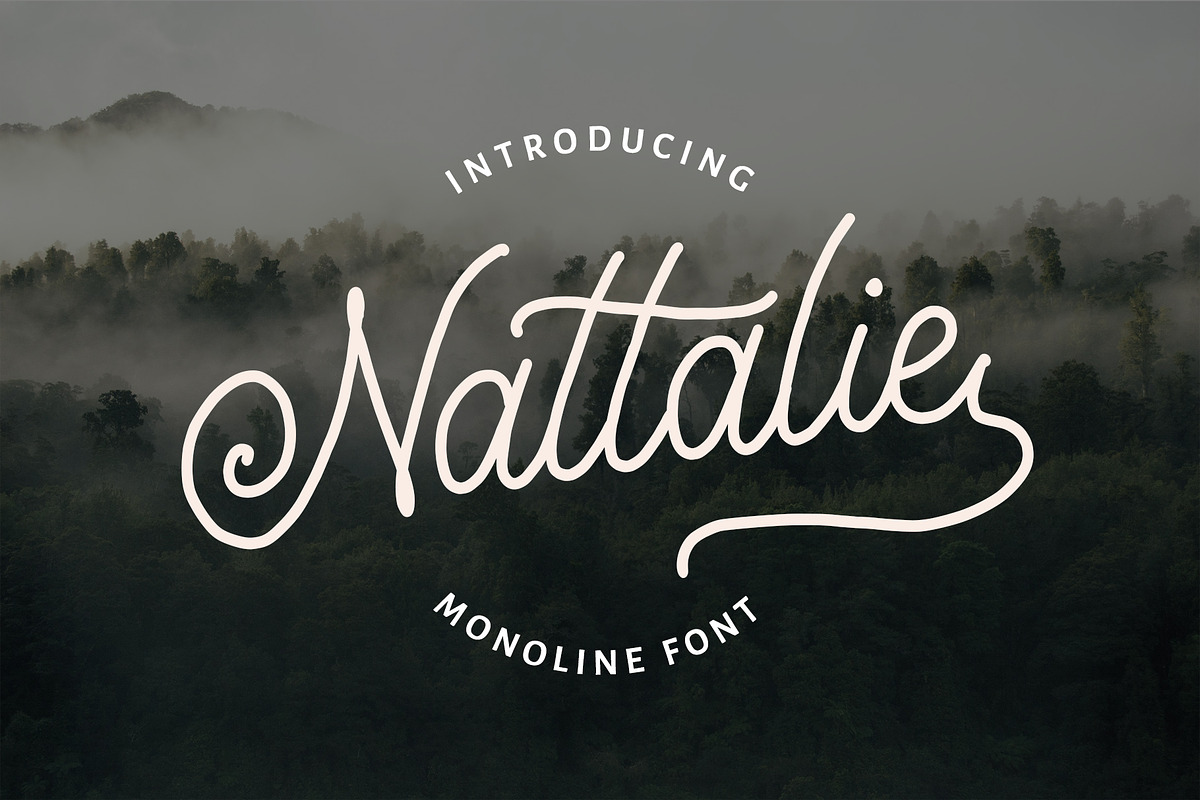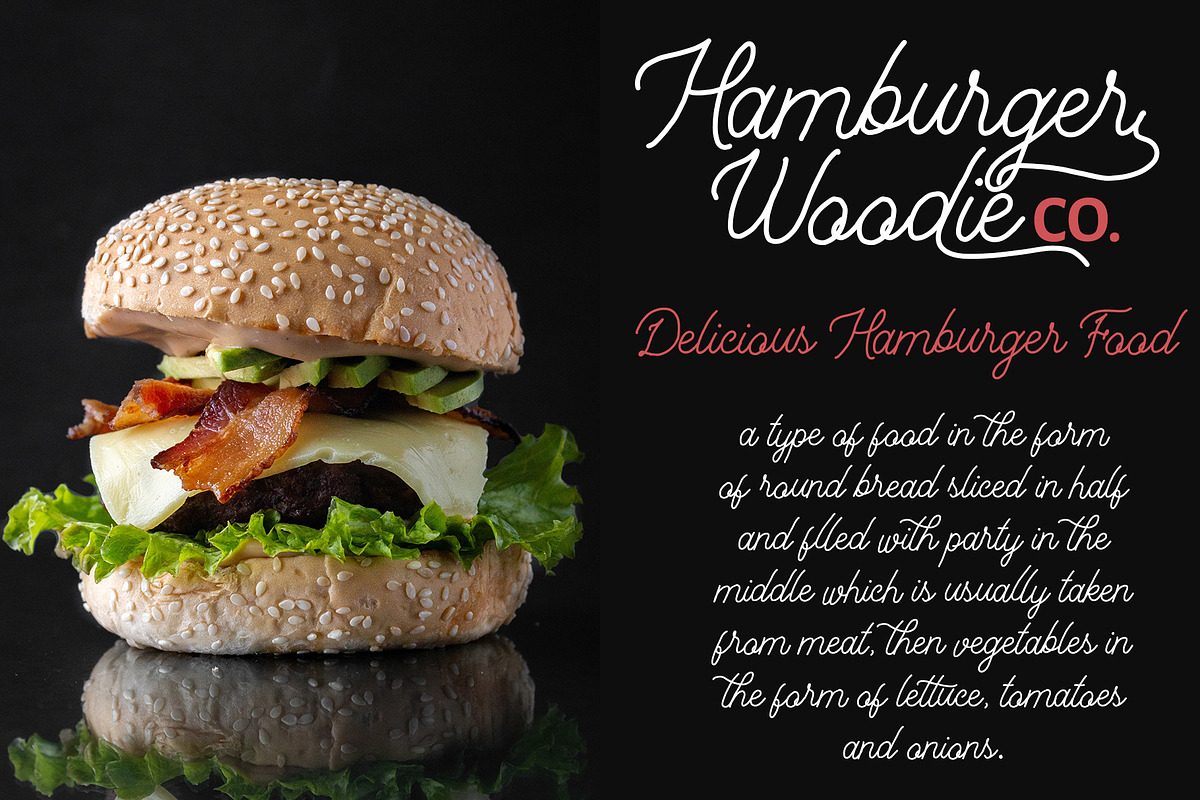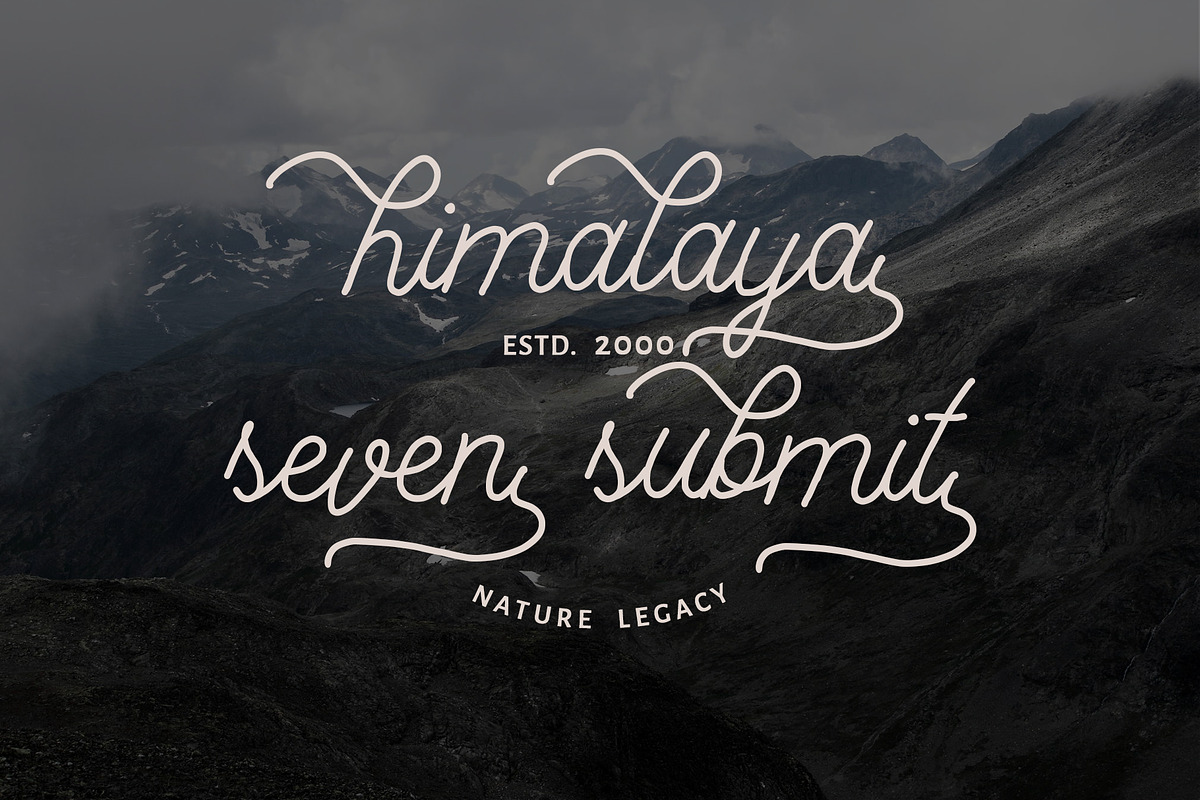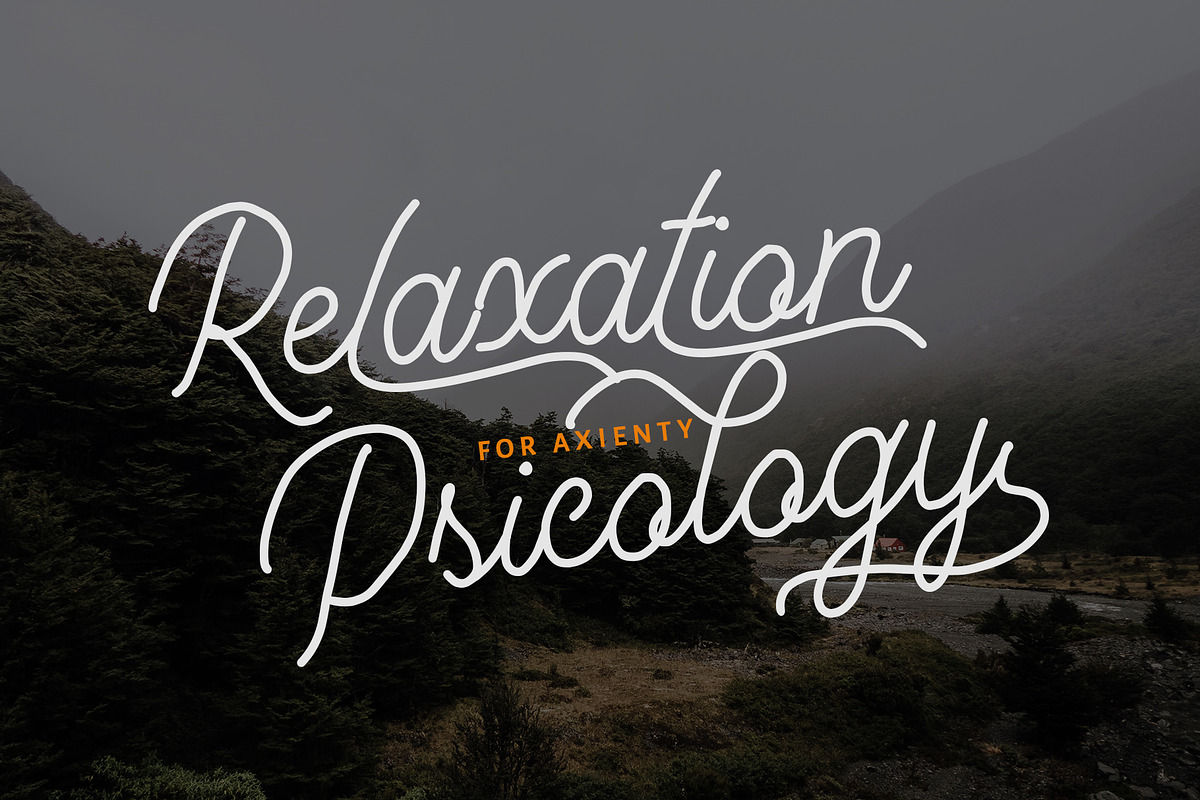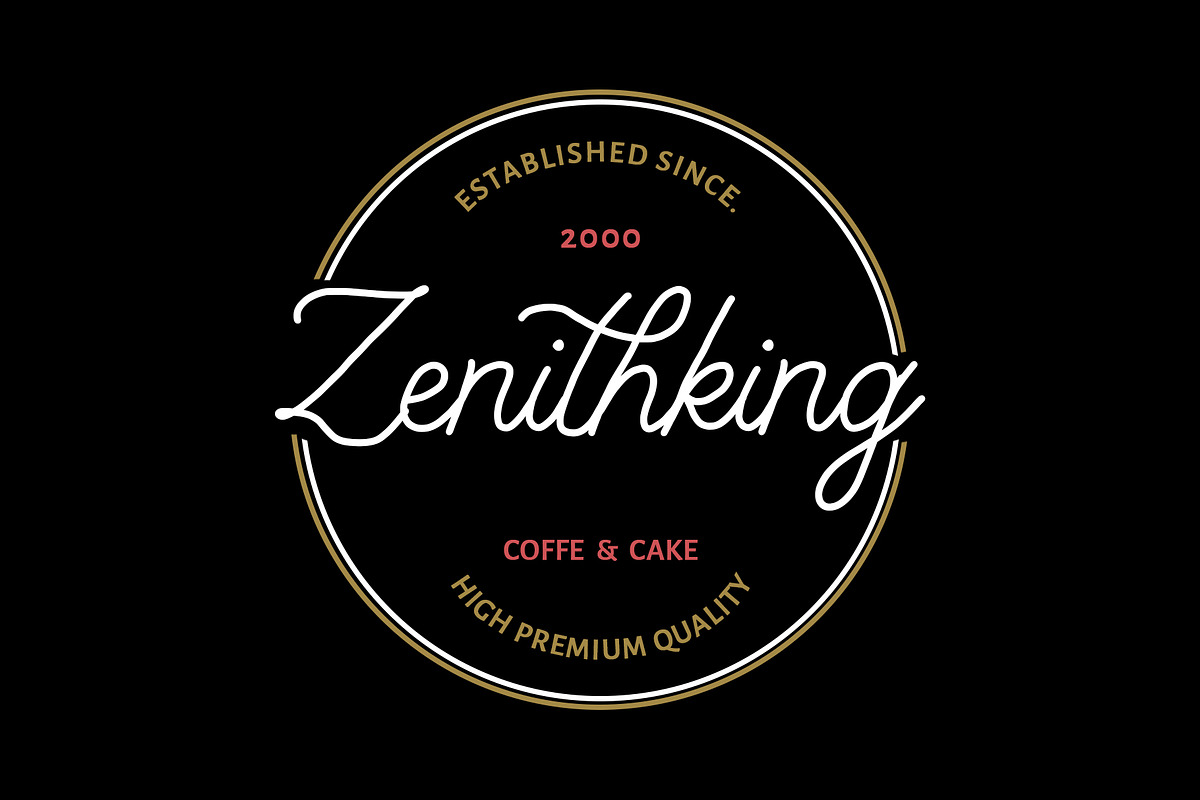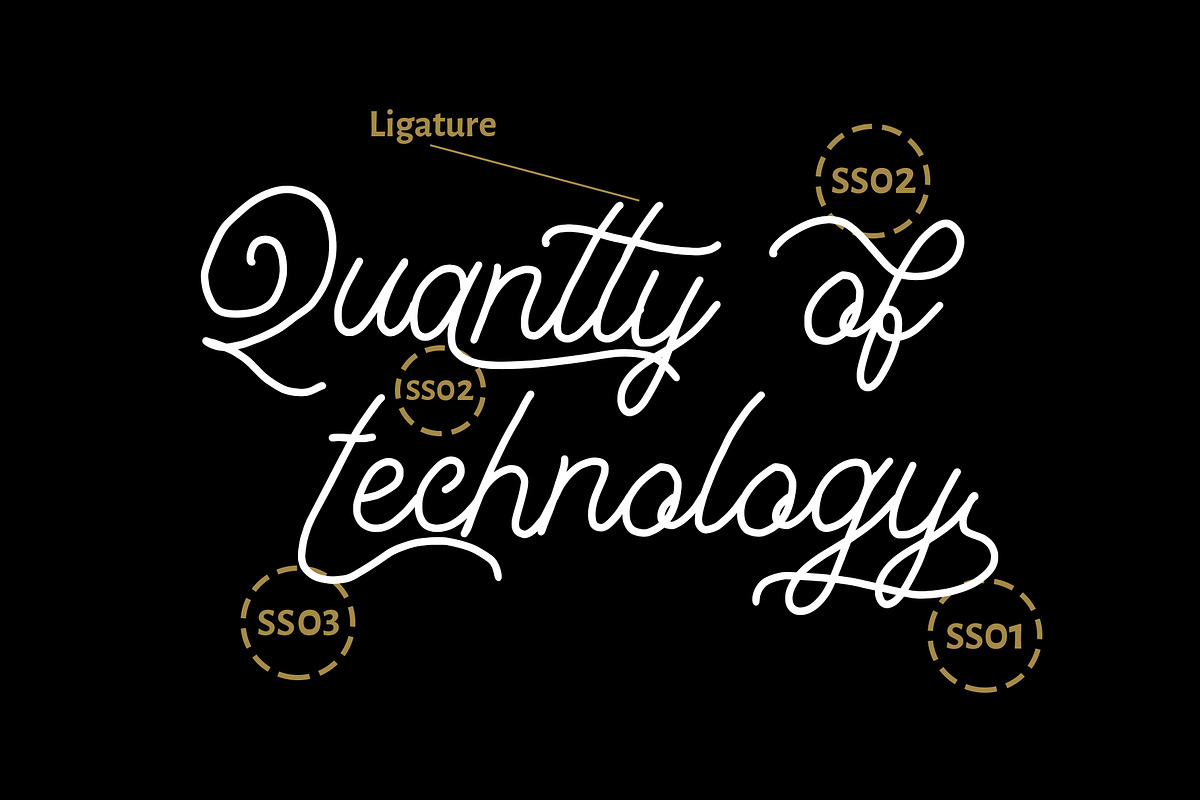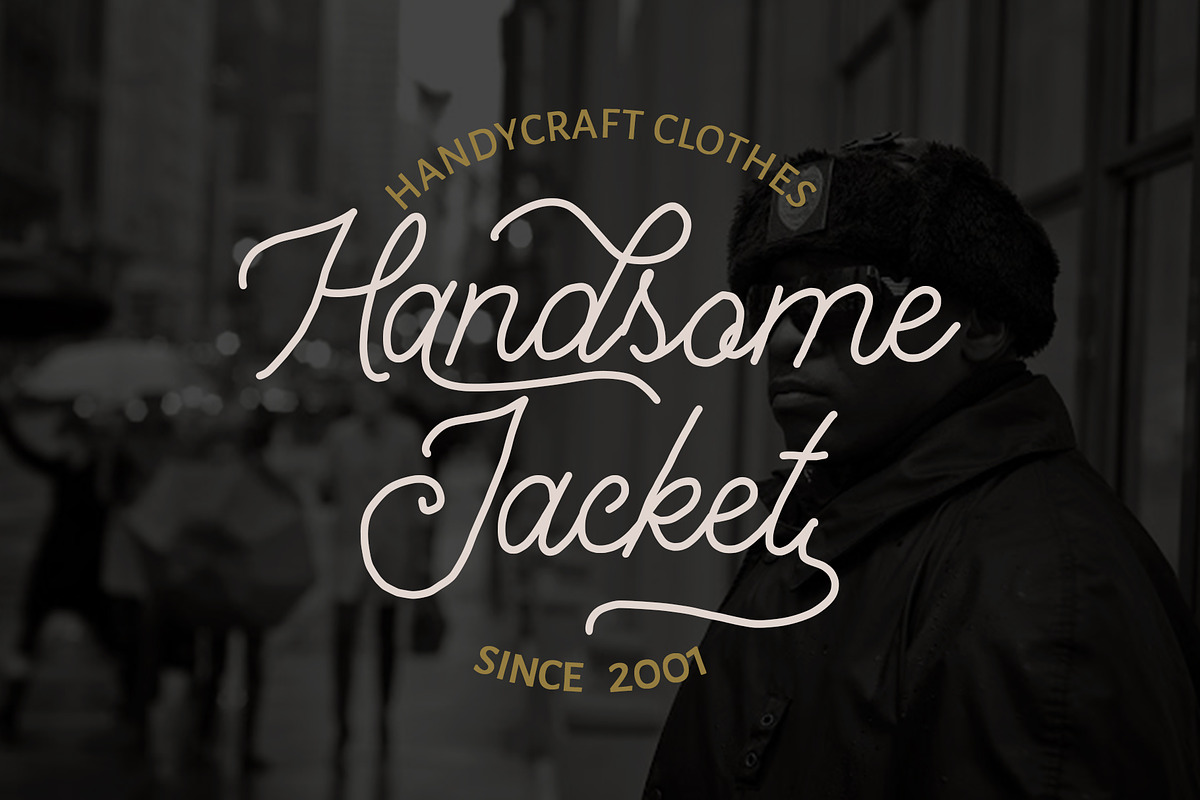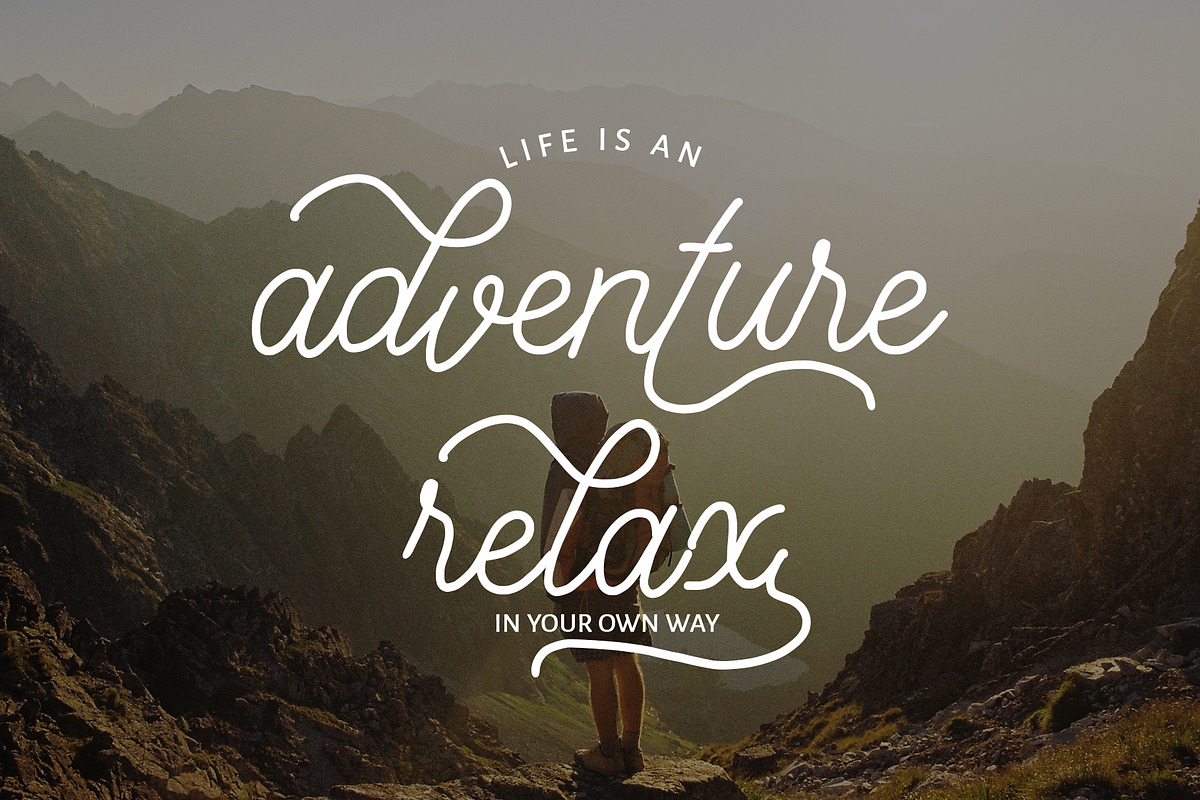
Nattalie Monoline Font
Nattalie Monoline Font is typeface was inspired by handwriting using pen. This font is suitable for wedding invitations, design, logo or branding, or as the font for the typography. Many features in this font such as ligatures, stylistic alternate, swashes, etc.
- Many features in this font such as ligatures, stylistic alternate, swashes, etc.
Why Nattalie Monoline Font is worth a look
Nattalie Monoline Font by Analogous fits naturally into Branding, posters, packaging, typography.